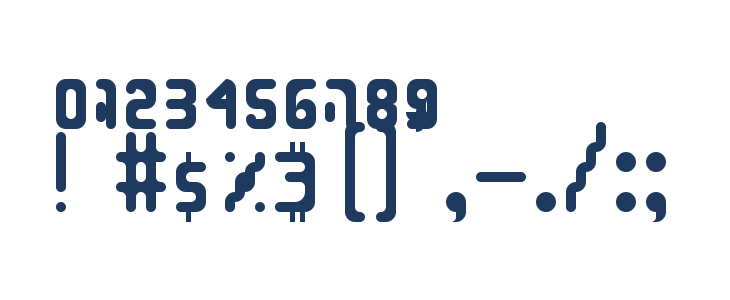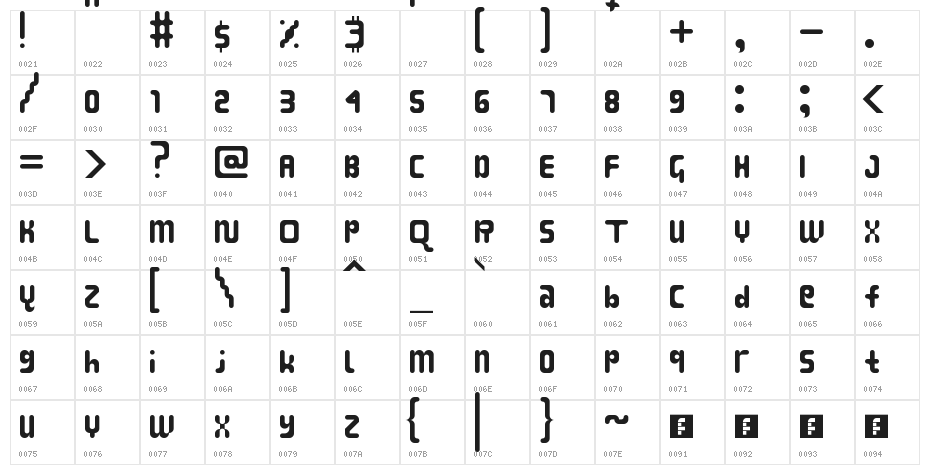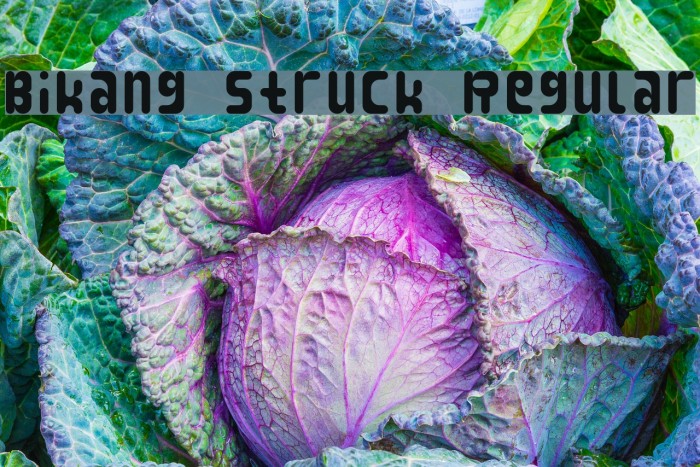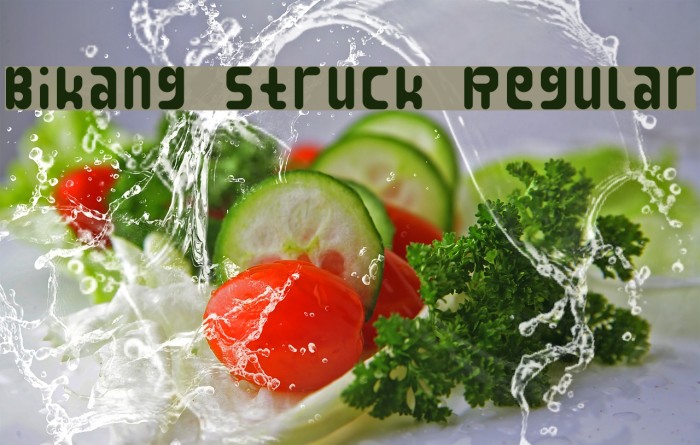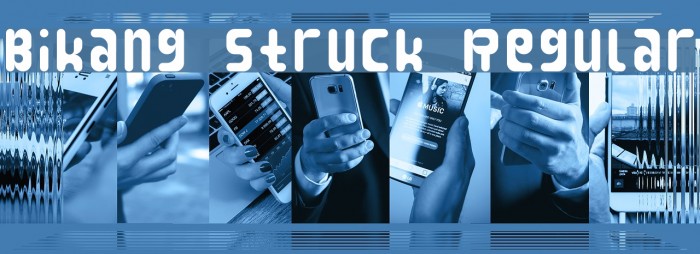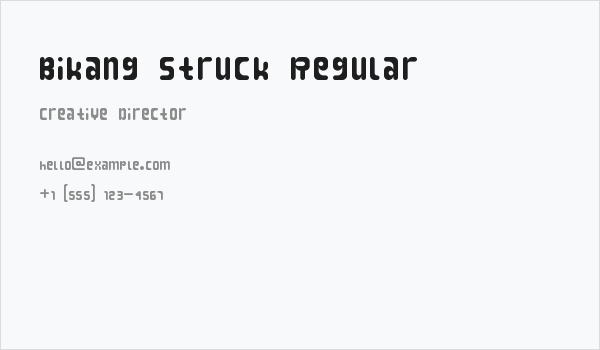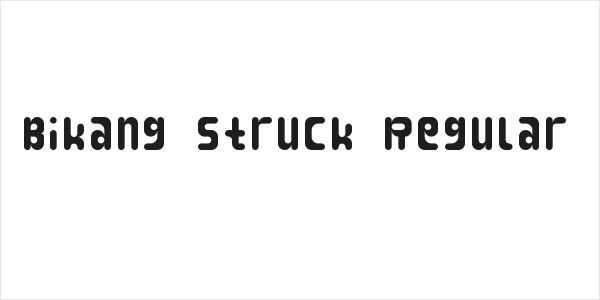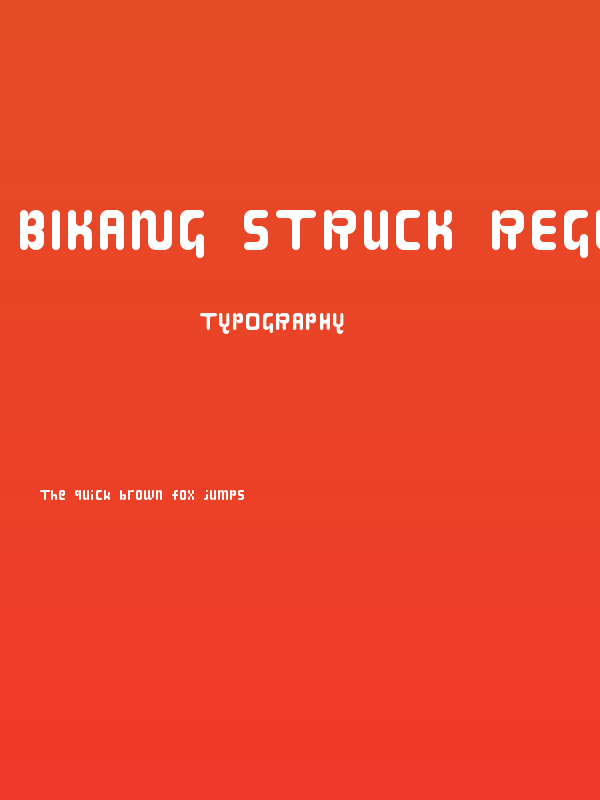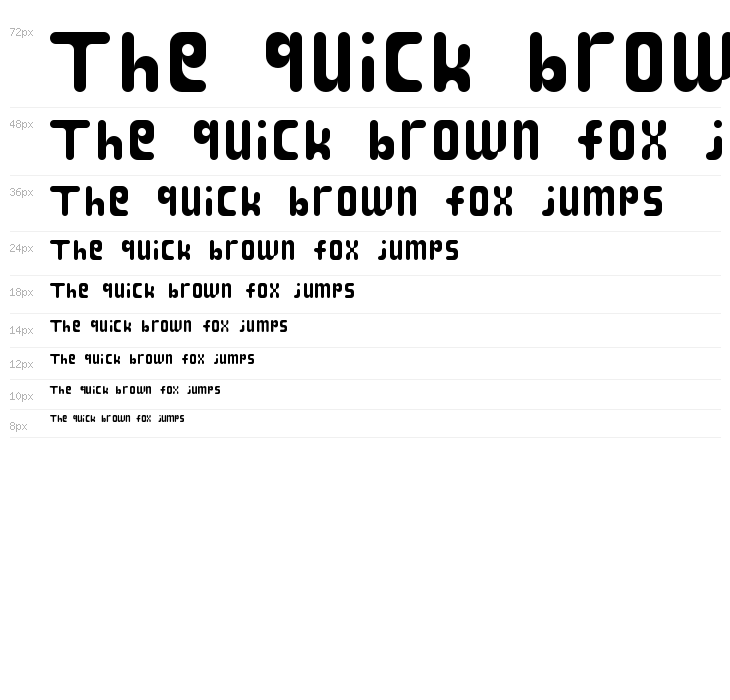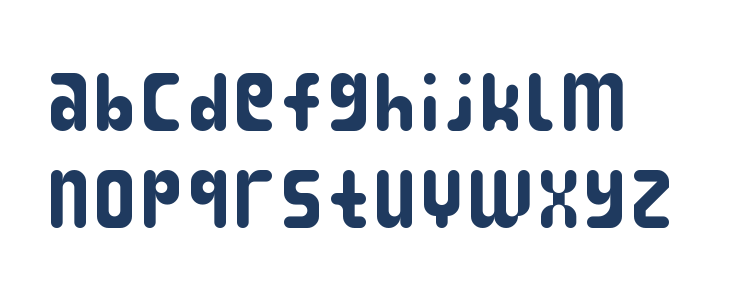
Bikang Struck Regular Font
Bikang Struck Regular Description
This font features a bold and rounded style with a modern and playful appearance. The characters are uniformly thick, giving it a consistent and cohesive look. The rounded edges and smooth curves contribute to its friendly and approachable feel. It maintains a geometric structure, which adds a sense of balance and stability. The font is highly legible, making it suitable for various design applications. Its unique style is characterized by the absence of sharp angles, creating a soft and inviting aesthetic. The spacing between characters is moderate, ensuring clarity and readability.